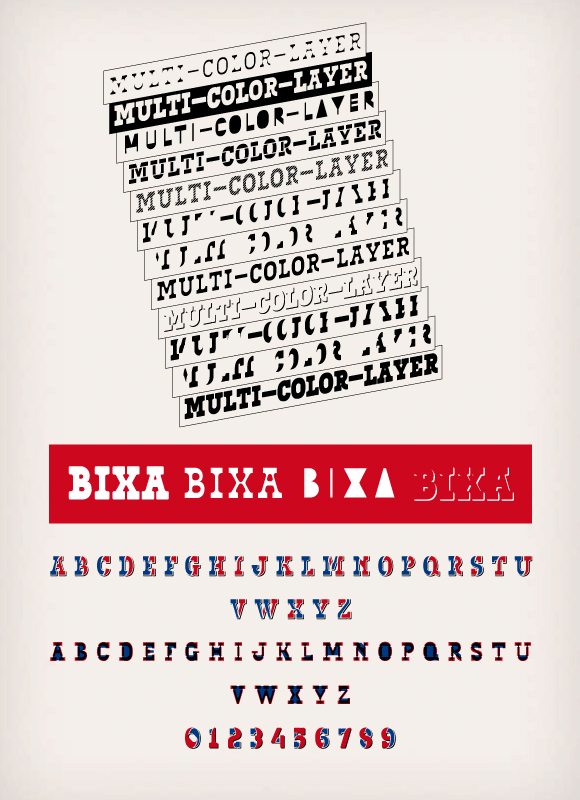
Bixa Rough is a chromatic typeface designed
for display use with special rough edges.
The design is based on the colored prints of
the wood type / letterpress version of Bixa.
Bixa comes in 13 different layers for beautiful
color combinations.
In 2016 we launched the chromatic web version
The wood type version of Bixa is available for use
at the Grafisch Werkcentrum Amsterdam.
Bixa is designed by Mark van Wageningen in 2015.